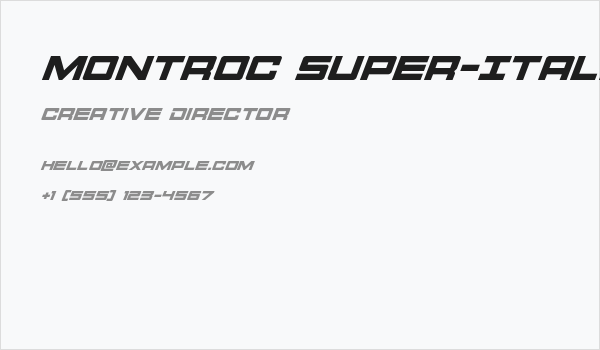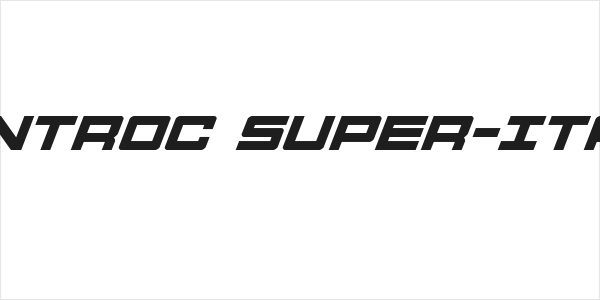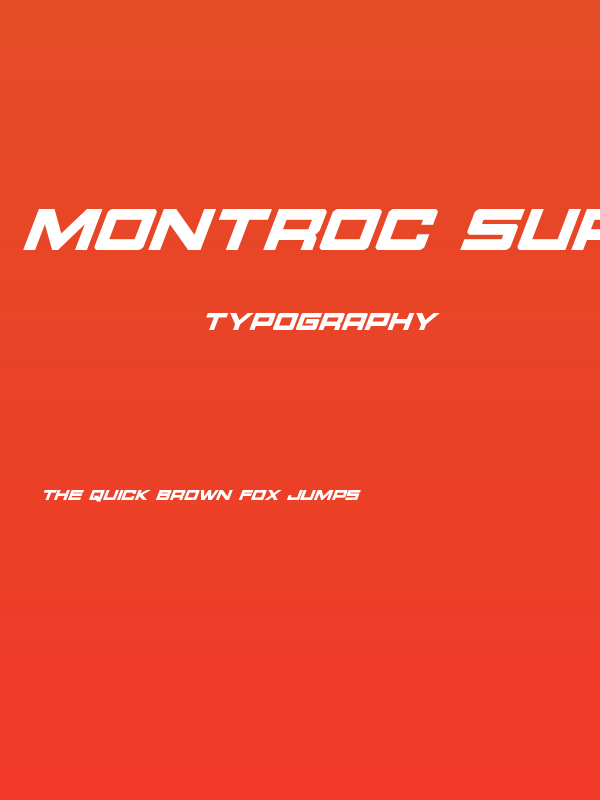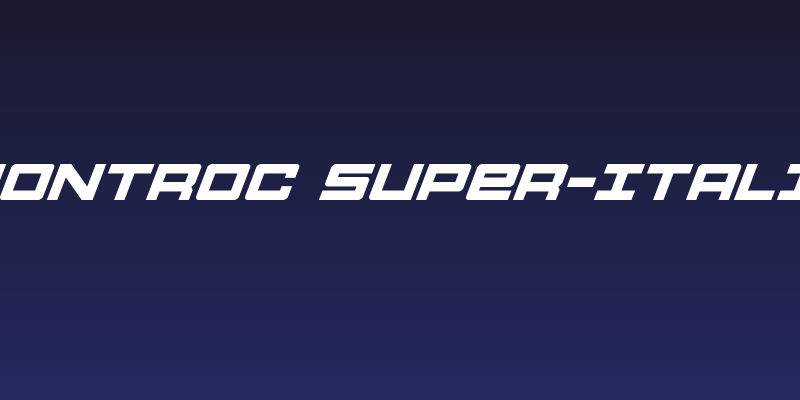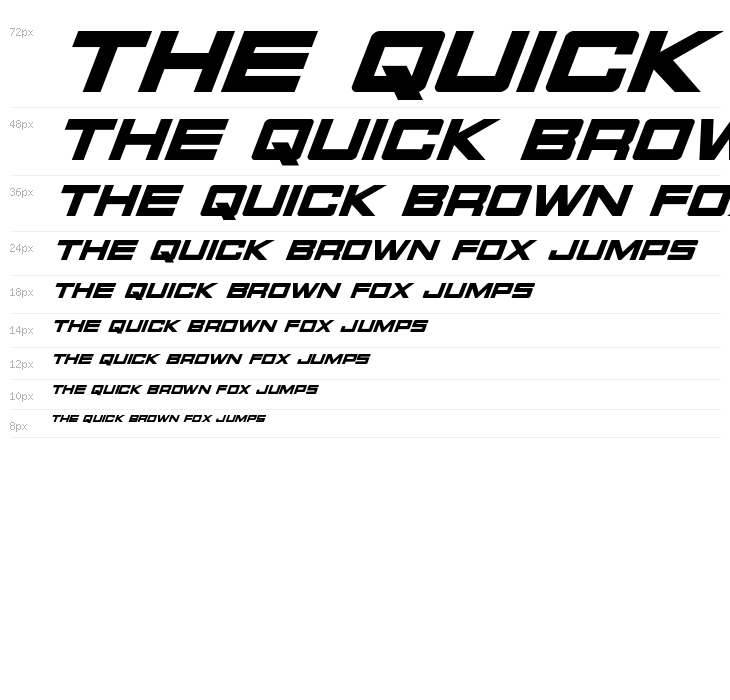
Montroc Super-Italic Font
Montroc Super-Italic Description
This font features a dynamic and modern design with a strong italic slant, giving it a sense of motion and speed. The characters are bold and angular, with sharp edges and a futuristic aesthetic. The uppercase and lowercase letters maintain a consistent style, while the numerals and special characters complement the overall design. The font's structure is clean and geometric, making it suitable for projects that require a contemporary and energetic look.
| Use Case | Logos, Headlines, Branding |
| Proposed Projects | Ideal for sports branding, automotive design, tech logos, and dynamic advertising campaigns. |